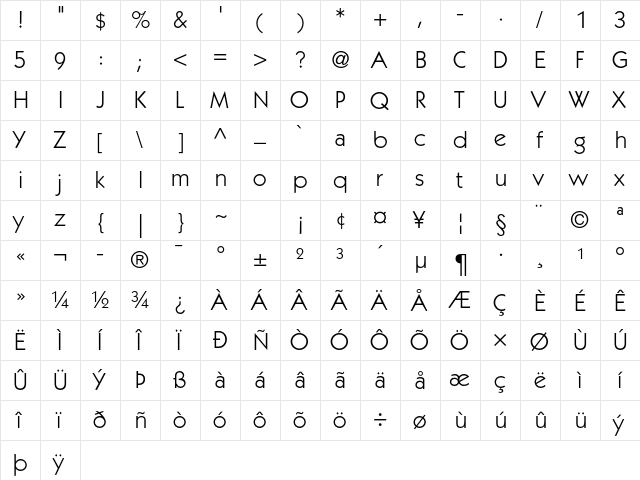
ITC Kabel Std Book
| Designer | Rudolf Koch |
Design Context for ITC Kabel Std Typeface
ITC Kabel Std takes a measured approach to typography — its balanced proportions and neutral character make it a reliable workhorse for both digital and print work.